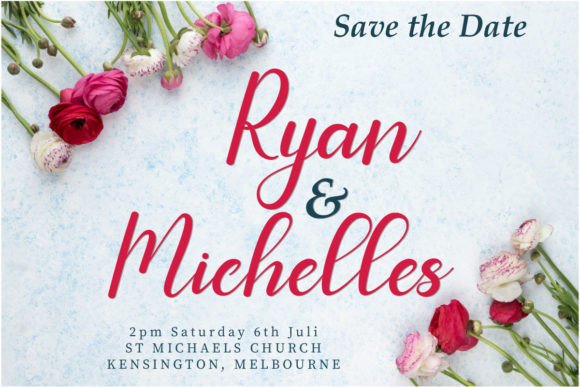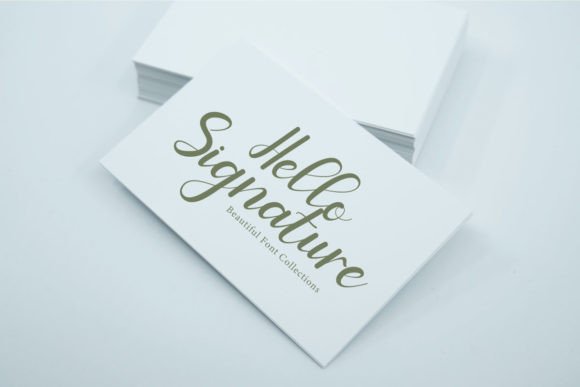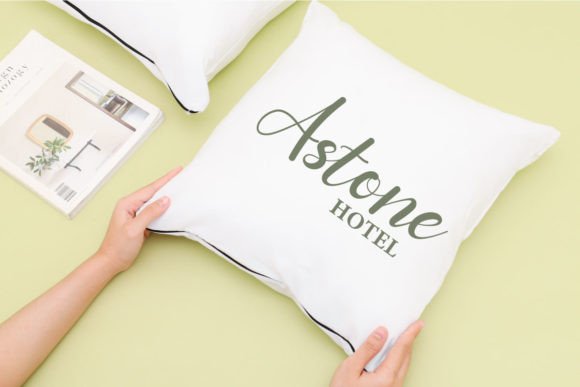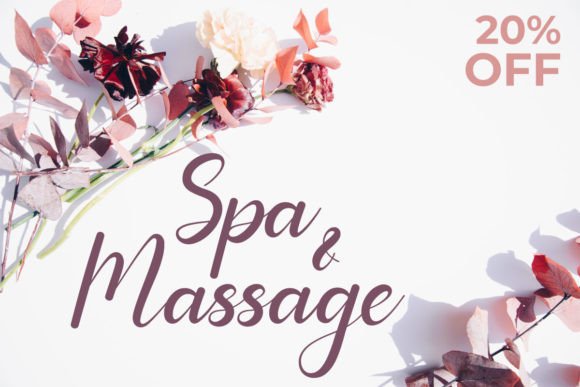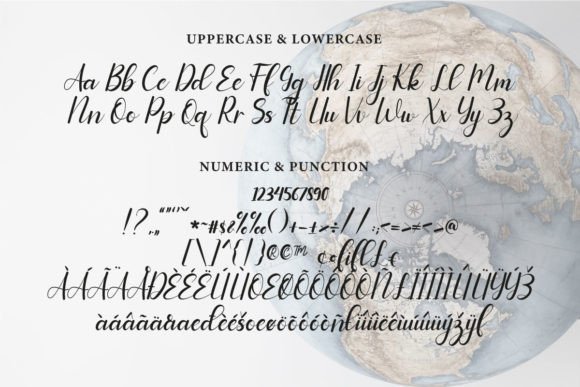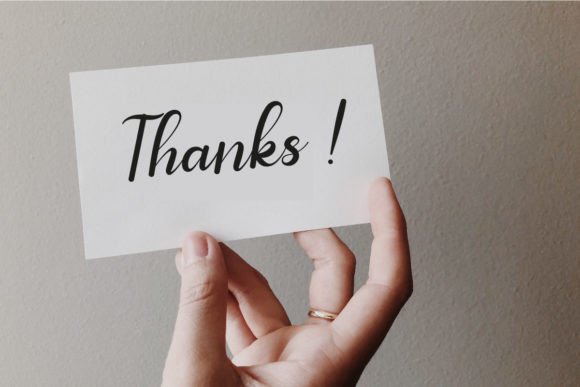
Introduction to La Albiceleste Font
Have you ever found yourself stuck in a creative rut, scrolling through countless design resources, searching for that perfect font to elevate your next project? I’m sure we’ve all been there. But what if I told you that I’ve recently stumbled upon a hidden gem that’s sure to take your designs to the next level?
La Albiceleste Font is a stunning, high-quality handwritten font that exudes elegance and sophistication. With its distinct and timeless style, it’s the perfect addition to any design project. Whether you’re working on a personal or professional project, La Albiceleste Font is sure to make your designs stand out.
- Unique, modern design that sets it apart from other fonts in its category
Honest Review: La Albiceleste Font
La Albiceleste Font is a free design resource that I’ve been experimenting with, and I have to say, it’s been a pleasant surprise. The high-quality font is perfect for any creative project that requires a unique touch. One of the standout features of this font is its transparent background, which makes it incredibly versatile and easy to use.
- ✨ Unique and stylish design that adds a creative touch to any project
- ✨ High-quality font that looks great on a variety of backgrounds
- ⚠️ Limited character set, which can be a problem for longer texts
La Albiceleste Font is a high-quality design resource ideal for creative projects that require a unique and stylish touch. This font features a transparent background, making it easy to integrate into various design platforms.
For optimal results, use La Albiceleste Font in combination with other high-quality design elements to create a cohesive and visually appealing design.
La Albiceleste Font is ideal for creative projects such as:
- Brochures